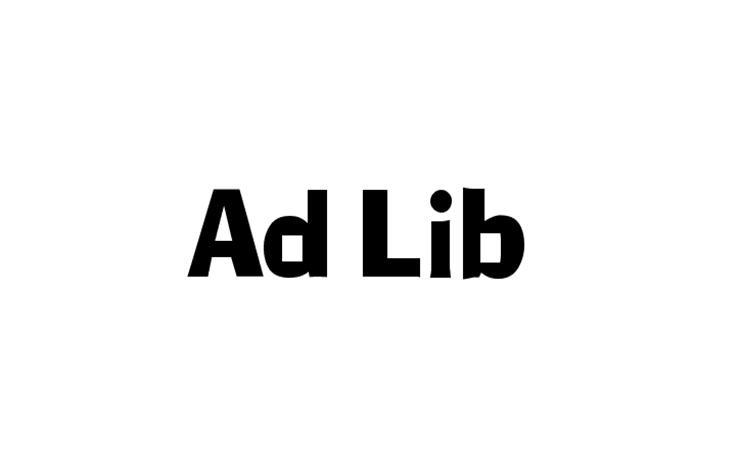
Adlib Font is a decorative font that comes with a retro-themed design with a mixture of playful elements. The font includes both uppercase and lowercase letters as well as plenty of ligatures.
This display typeface was designed in 1961 by Freeman Craw for American Type Founders. Craw was vice president and art director of Tri-Arts Press, Inc. in New York City.
It is bold Grotesque with irregular rectangular counters in round characters. This is of extraordinary nature!
The popularity of this typeface is increasing day by day due to the deep features and very clear shape of the interstate fonts. These features make this stylish font family different from others.
Tie here as you can see in the pictures. This beautiful typing fee has very clear and concise text formats. Ideal for pairing fonts functions.
You can use this fine quality logo font in making logos, posters, elegant banners, artistic business card designs, watermarks, brochure designs, book covers, book composing, website templates, title crafting, and many more.